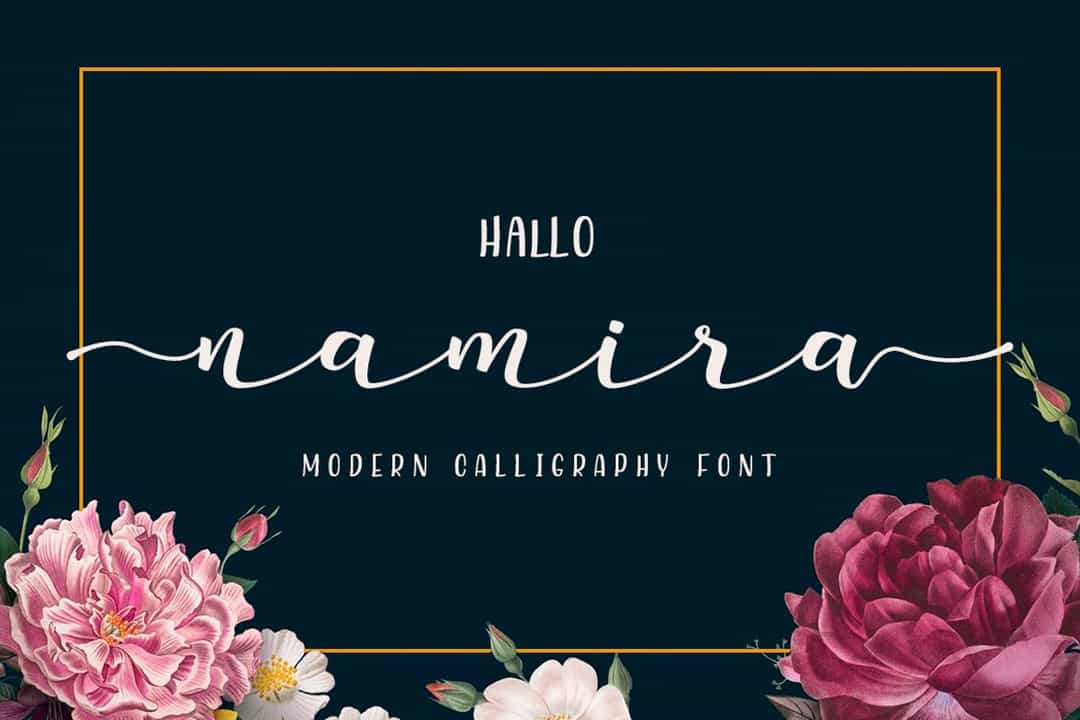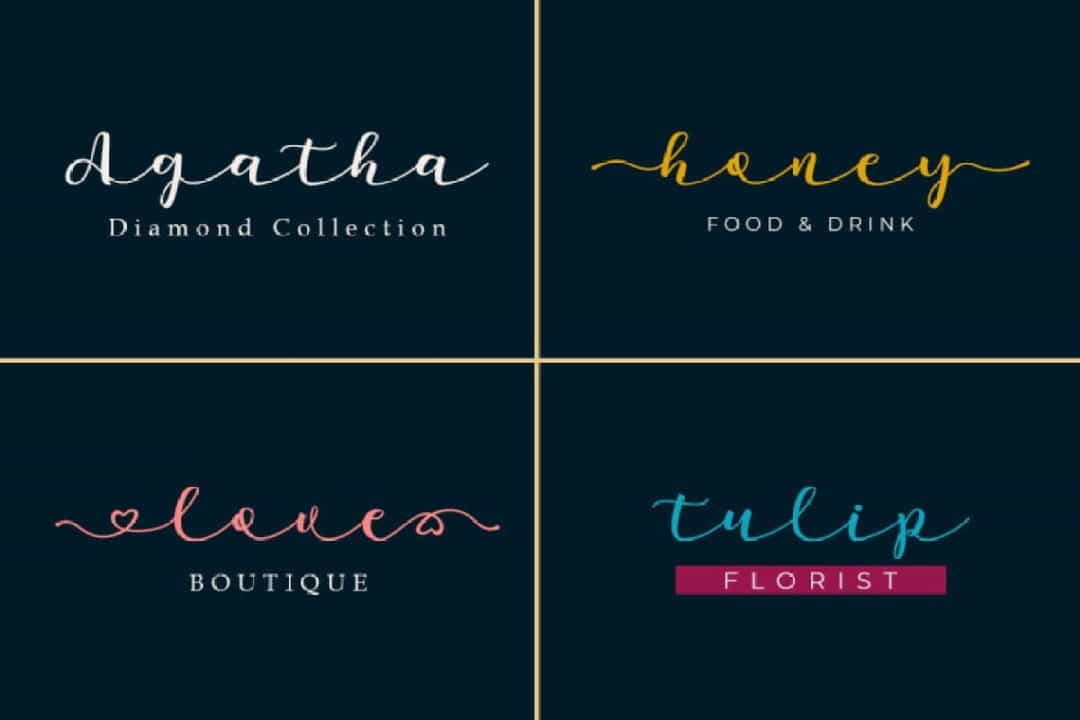
Namira Font is modern calligraphy type font with the handwriting look and feel. This font is suitable for wedding invitation, branding a magazines, mugs and invitations business cards posters quotes etc. You should first try this font if you are planning to buy it.